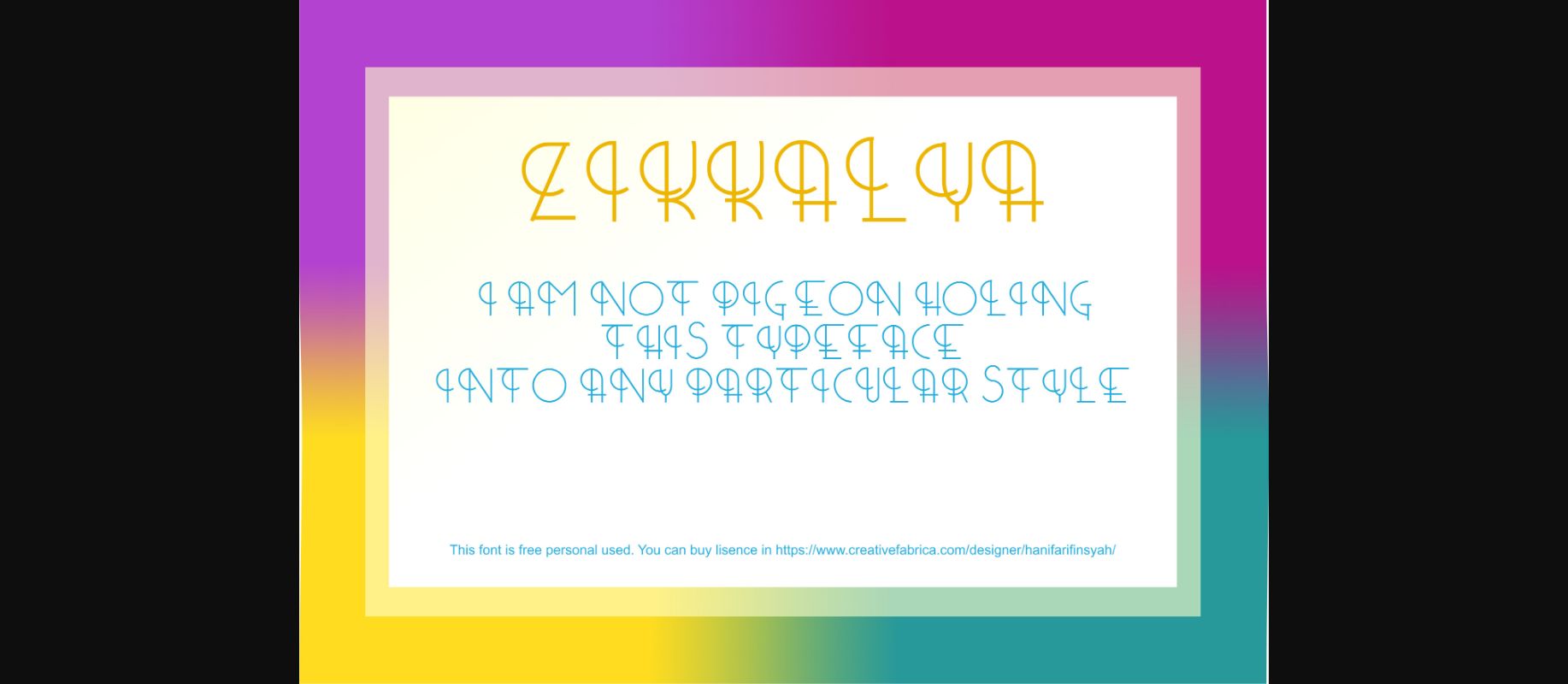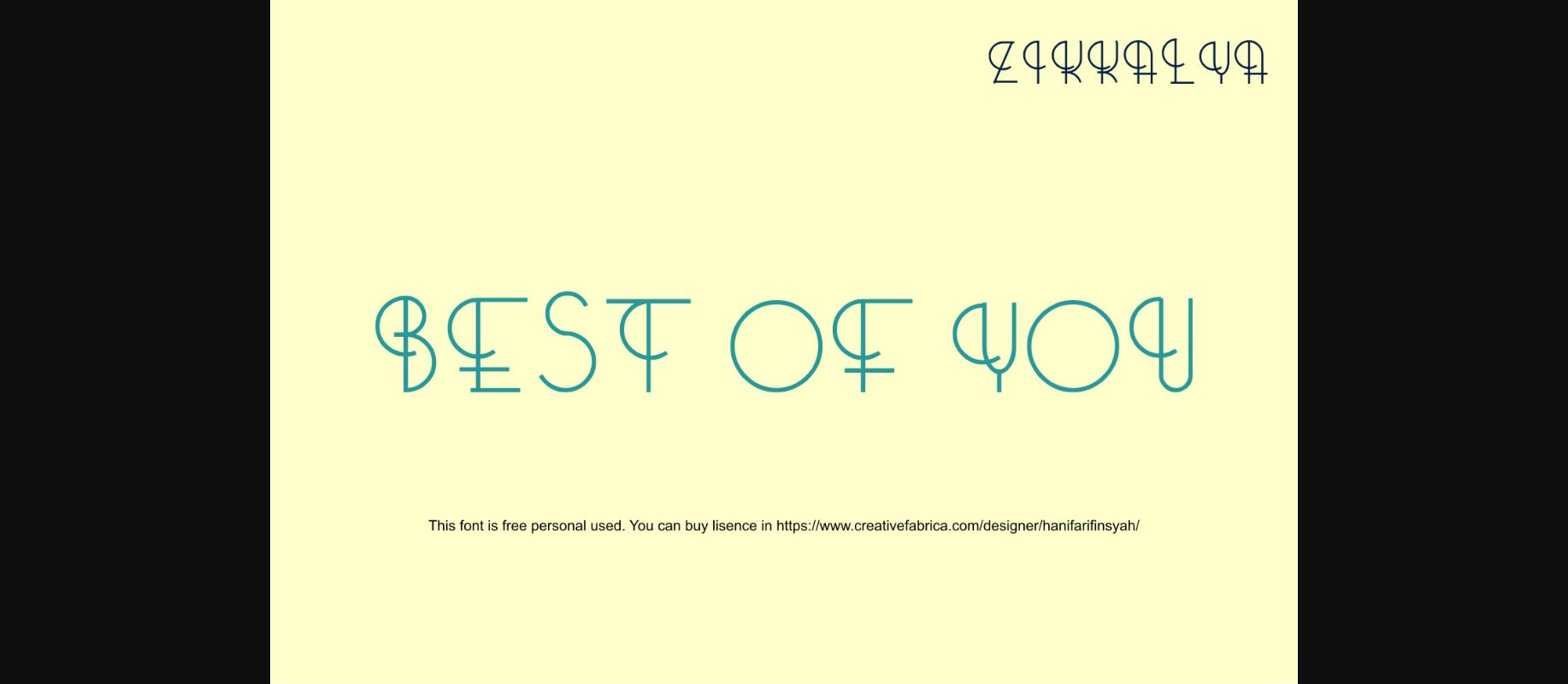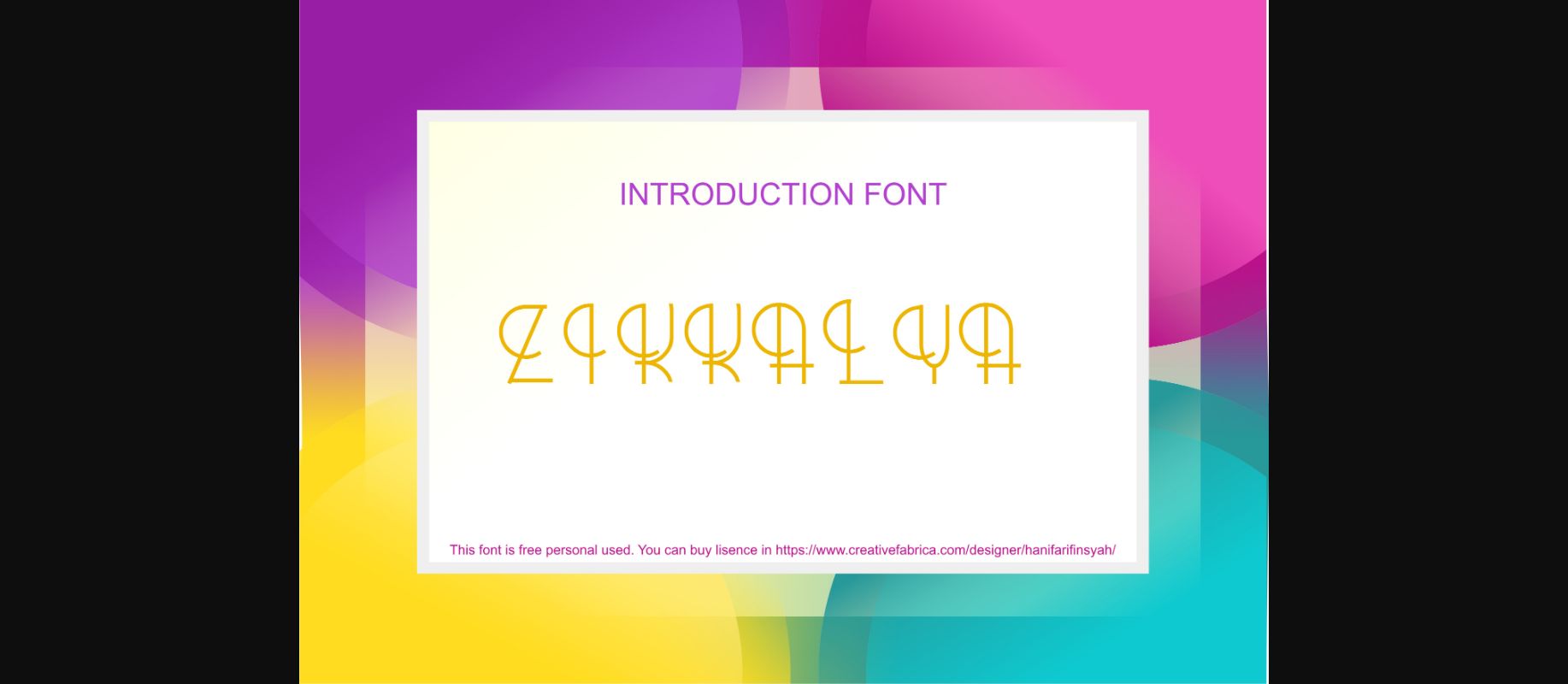
About Zikkalya Font
Zikkalya is a fun and beautiful decorative font with a unique feel. It will allow you to create eye-catching crafts in an instant!